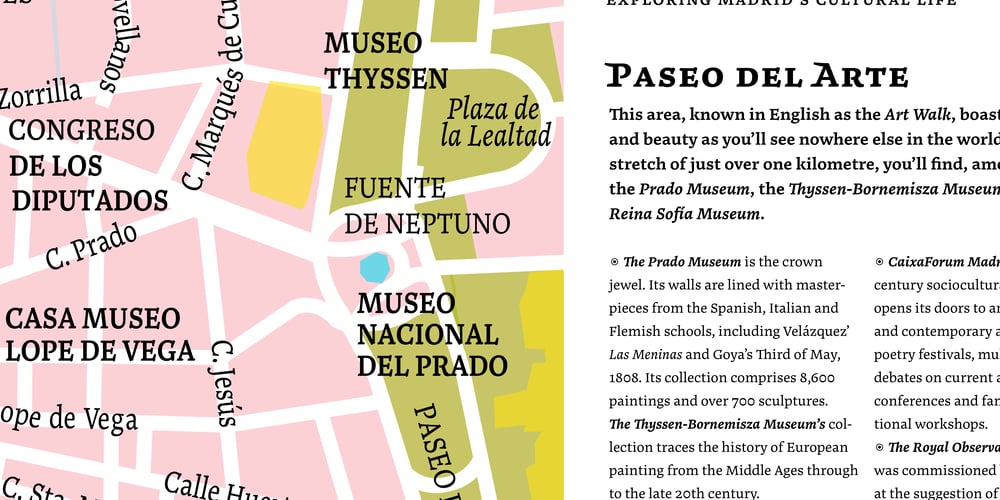
Noort Font Family was designed by Juan Bruce and published by TypeTogether. Noort contains 10 styles and family package options. Juan Bruce’s Noort is not a type family for wayfinding or mapmaking alone, but for clarifying information and engaging readers along their own journey. The information designer’s role is to bring clarity and style to overwhelming amounts of information, which fortunately is Noort’s purpose as well. Hierarchies submit to its will and layering colour only adds more presence to its active posture. Noort’s design uses the proven editorial text features of a large x-height, ample spacing, and low contrast to check all the boxes for paragraph text use. But it’s the long serifs, wide characters, and overall typographic presence that make it resilient and ease the task of reading in small point sizes. These details mean Noort is able to demonstrate importance not only with its five pitch-perfect weights, but with its brindled colour within a layout. Noort’s roman and italic styles play off each other by transplanting their design features. The roman style’s serifs are transferred in substance but expectedly increased in speed in the italic styles. And the italic’s inktraps and separated strokes are echoed amidst the roman’s upright structure. Where digitisation could have removed the influence of the hand, Noort retains the analogue nature of its creation. This antiphonal seeding of details creates a cohesive family that is as fascinating as it is functional. Noort’s axis and serifs have a slightly varying ductus — the directional flow that aids reading and character clarity. Its latent obviousness in text sizes immediately becomes its signature style when bumped up to subhead sizes. And since Noort’s counters are so wide and welcoming, its heavier weights can expand more within themselves than along their exterior edges. Noort’s ten total fonts cover the Latin A Extended glyph set to bring its unbordered, globetrotting sensibilities to your projects. OpenType features include ligatures, fractions, and several figure styles, along with mature-rather-than-overbearing swashes. Aligned with TypeTogether’s commitment to produce high-quality type for the global market, the complete Noort family can set digital and printed works with ease, capitalising on the dual needs of clear information and fascinating textual artistry.